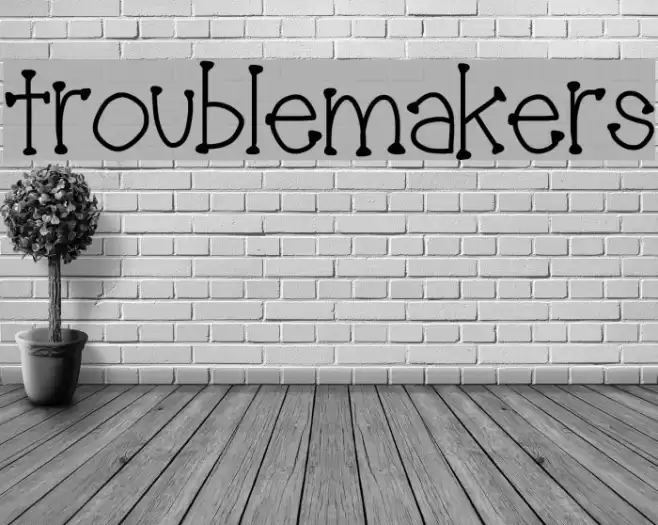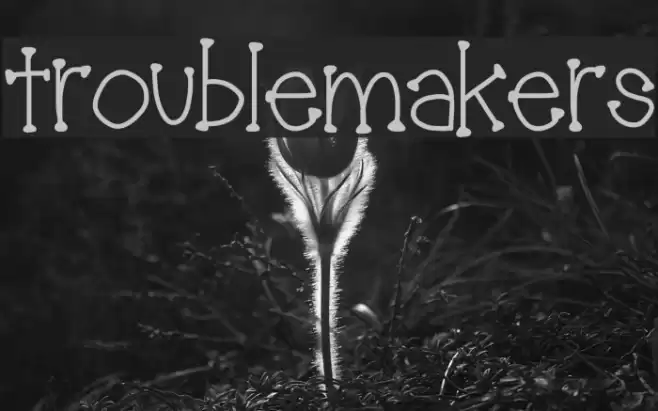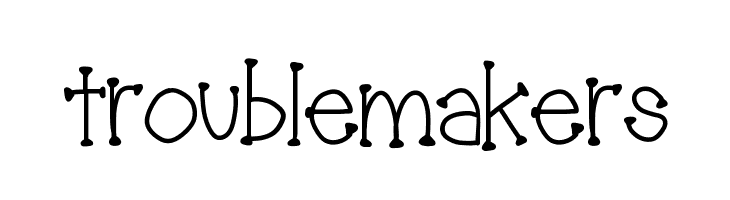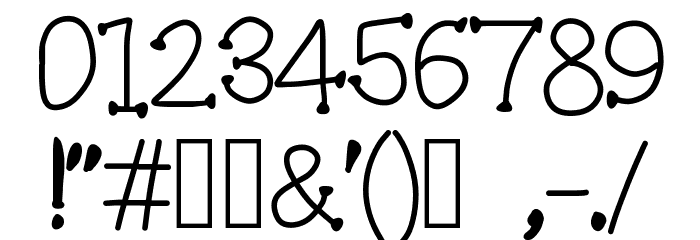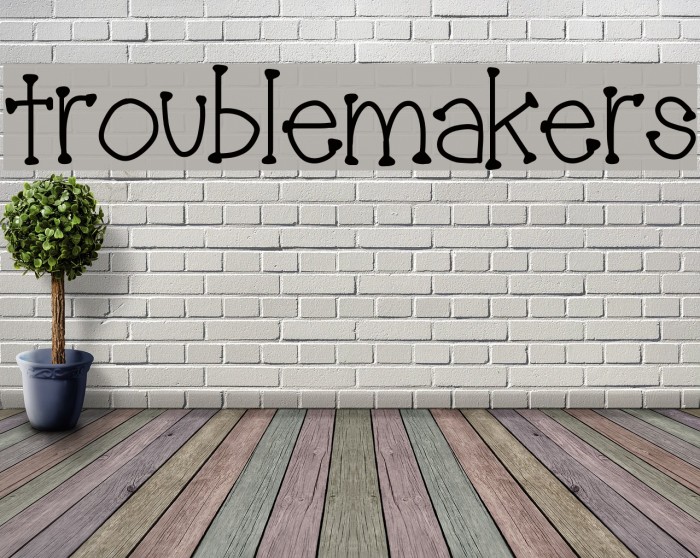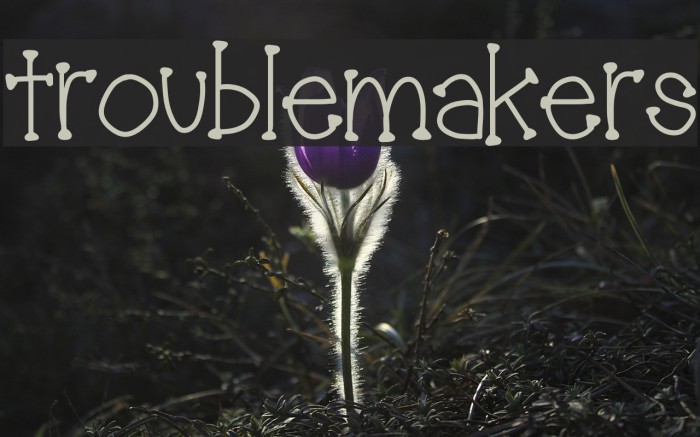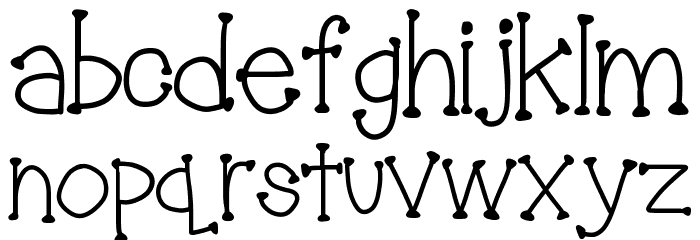
troublemakers Font
troublemakers Description
This playful and whimsical font features a unique design with rounded terminals and irregular strokes, giving it a hand-drawn, casual appearance. The characters are slightly uneven, adding to its charm and making it ideal for informal and creative projects. The font maintains a consistent stroke width, providing a cohesive look across all characters. Its distinctive style is characterized by a balance between quirky and legible, making it suitable for a variety of applications where a fun and approachable tone is desired.
A playful, hand-drawn font with rounded terminals and irregular strokes from Uncategorized fonts.
- Proposed Projects: Ideal for children's books, greeting cards, playful branding, and creative posters.
- Overall Style: Whimsical